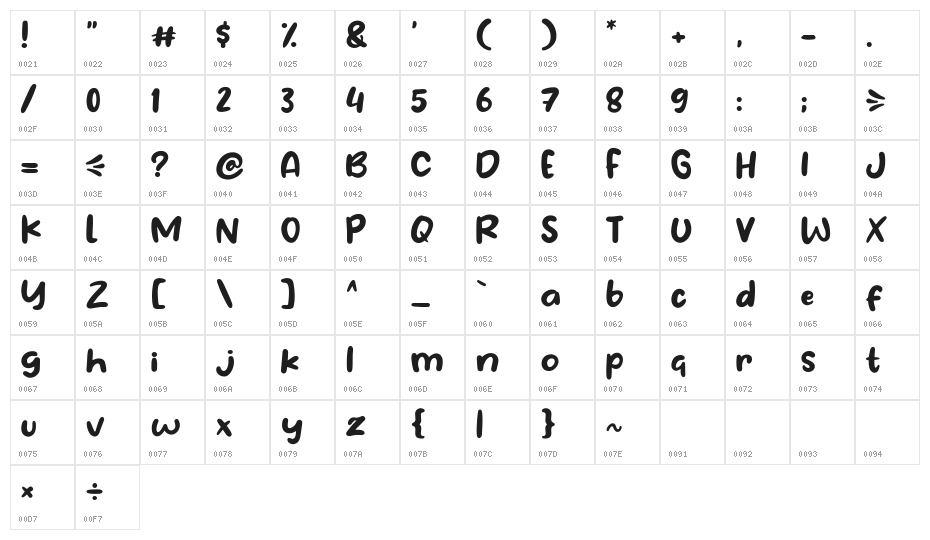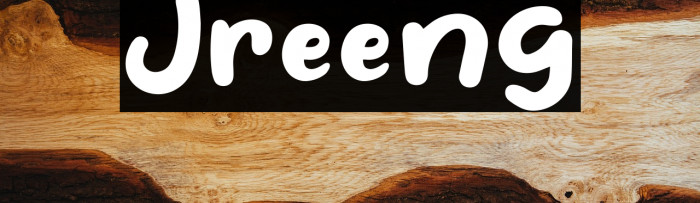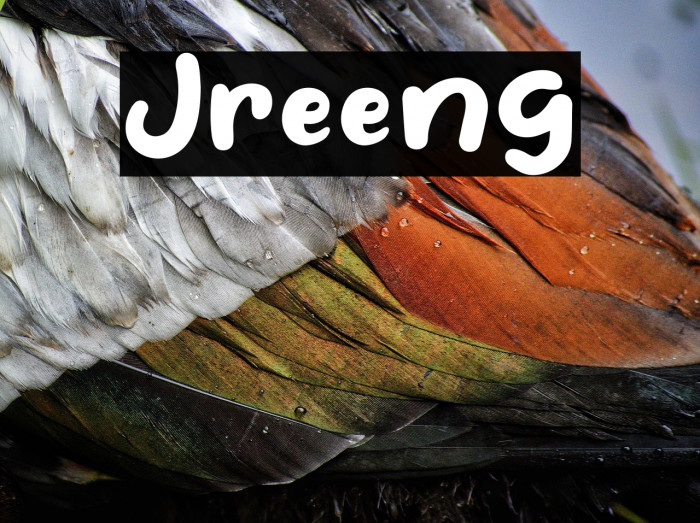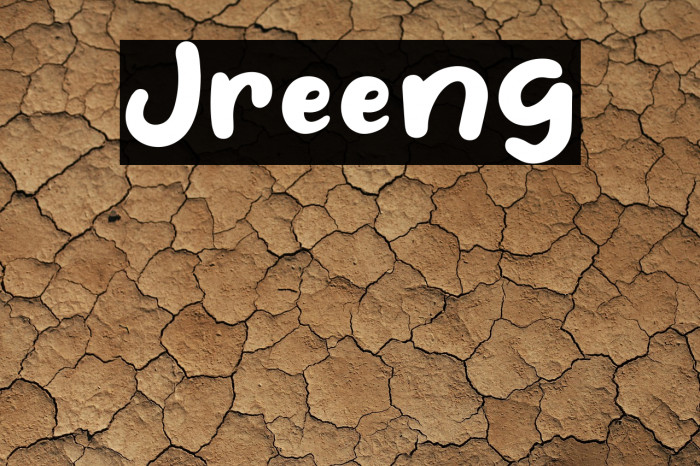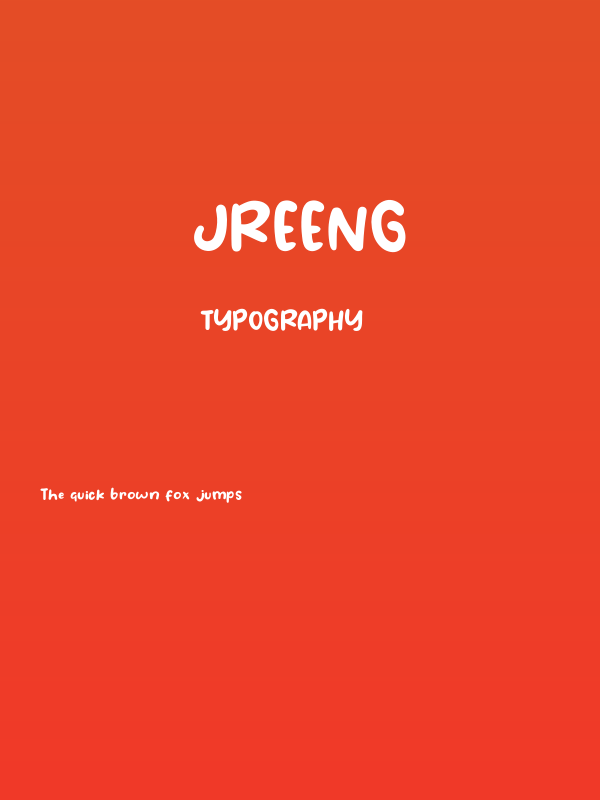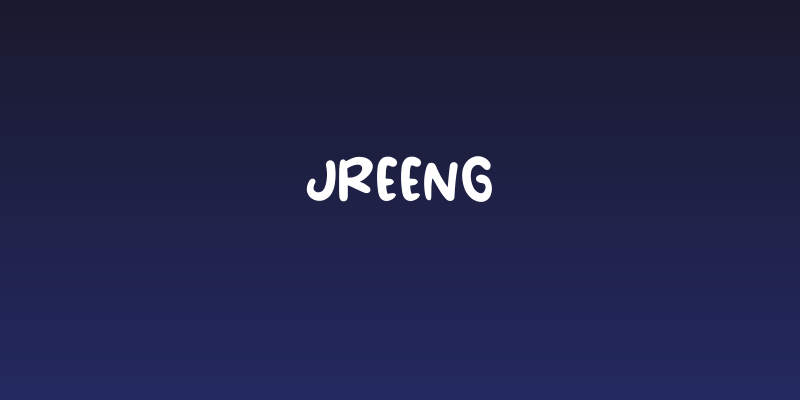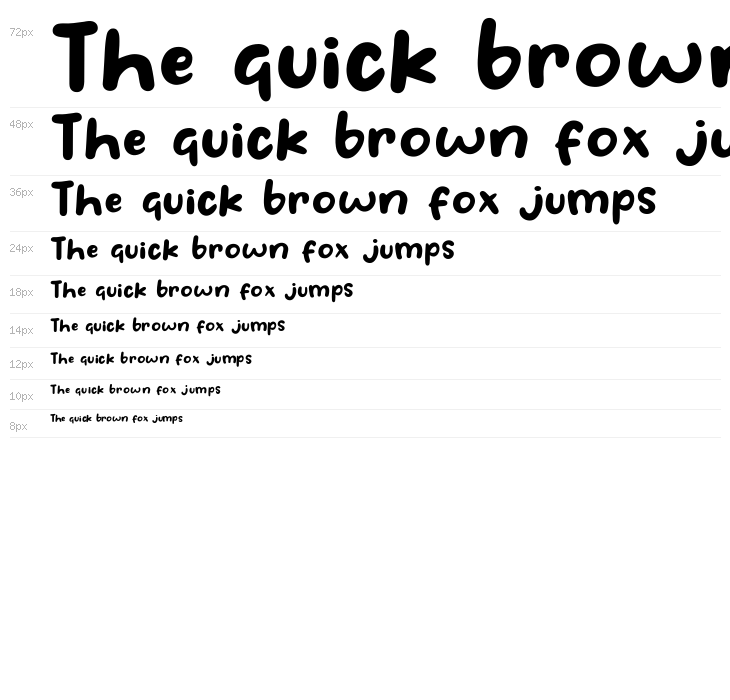
Jreeng Font
Jreeng Description
This playful and bold font features rounded, thick strokes that give it a friendly and approachable appearance. The characters are slightly irregular, adding a whimsical touch that makes it stand out. The uppercase and lowercase letters maintain a consistent style, with smooth curves and a hand-drawn feel. The numerals and special characters follow the same design, ensuring a cohesive look across all elements. This font is perfect for projects that require a fun and informal vibe, such as children's books, playful branding, or casual invitations.
| Use Case | Logos, Headlines, Informal text |
| Proposed Projects | Ideal for children's books, playful branding, casual invitations, and informal designs. |